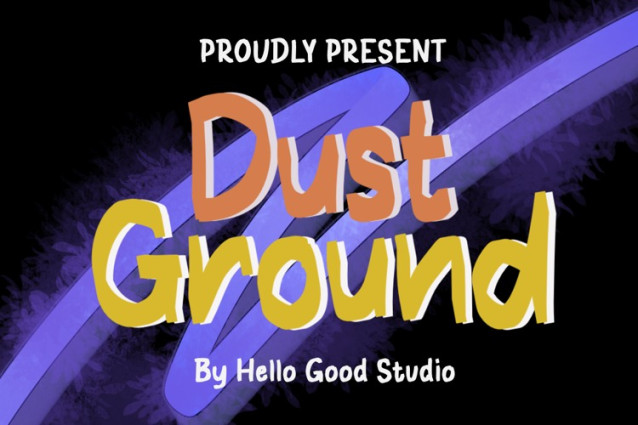
Dust Ground Font
Dust Ground Font – Check out this vibrant display font that blends a casual script style with a high-energy 3D effect. Perfect for content creators who want their titles to pop with a touch of “Humor Smart.” Whether it’s for YouTube thumbnails or streetwear branding, this font brings a fun, urban edge to every design.